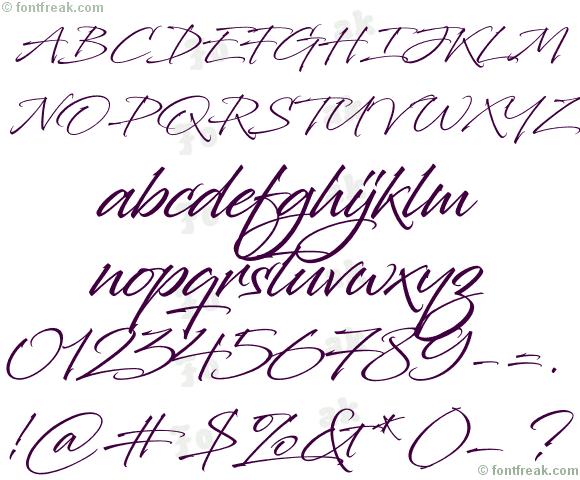
Mafakanev
About Mafakanev
Mafakanev, crafted by Youssef Habchi, is a stunning handwritten font that effortlessly blends elegance with a contemporary flair. This script font features a fluid style characterized by its graceful strokes and varying line weights, which create a dynamic visual appeal. The letters flow into each other with a slight slant, providing a sense of movement and spontaneity. The spacing is meticulously designed to maintain readability while allowing the font's artistic qualities to shine through.
Best suited for a variety of creative applications, Mafakanev is ideal for wedding invitations, where its sophisticated curves can evoke feelings of romance and joy. It also works beautifully in branding projects, especially for boutique shops or artisanal products that seek to convey a personal touch. Additionally, this font can enhance restaurant menus, creating an inviting and warm atmosphere, or be used in social media graphics to capture attention. Graphic designers and content creators will find that the Mafakanev font free download opens up opportunities for diverse projects, making it a versatile addition to their design toolkit.
The target audience for this font includes graphic designers, small business owners, and creative professionals who value unique typography. Its distinct style is perfect for those looking to add a personal flair to their designs without sacrificing professionalism.
What sets Mafakanev apart is its ability to balance elegance and approachability, making it suitable for both formal and casual contexts. Whether you're designing an elegant invitation or an eye-catching logo, this font brings a touch of artistry that elevates any project. Embrace the charm of Mafakanev and let it inspire your next creative endeavor.